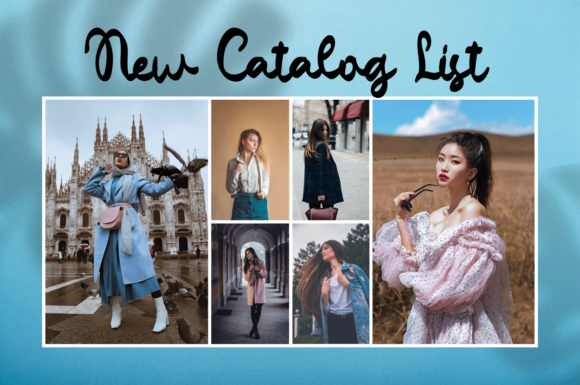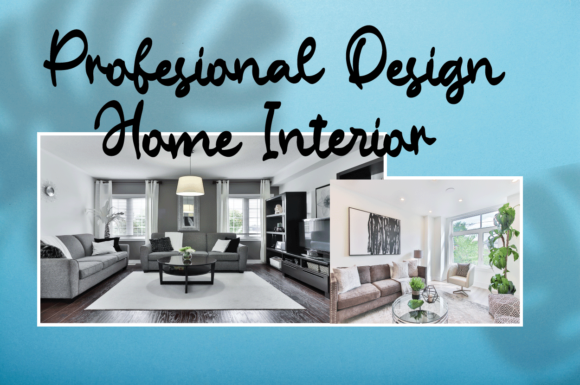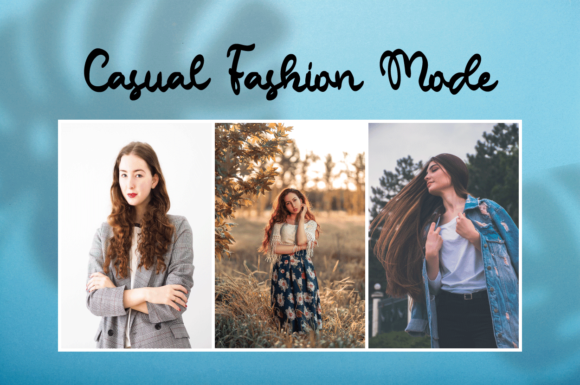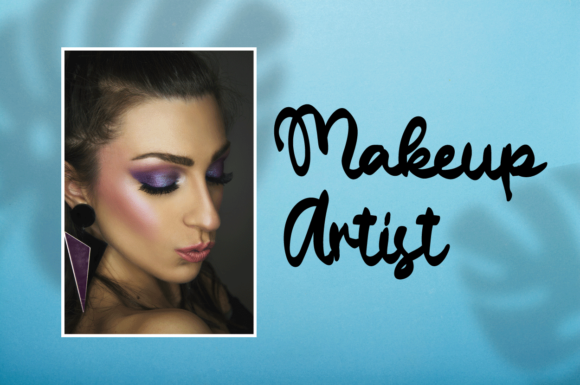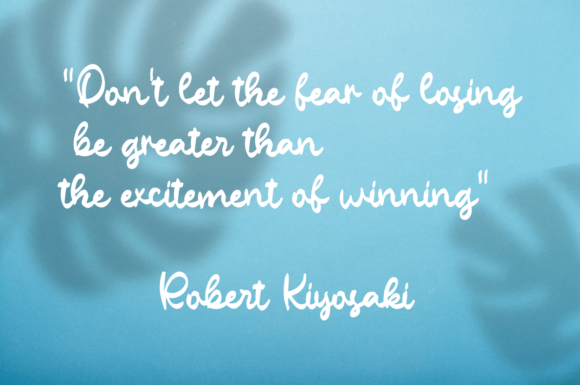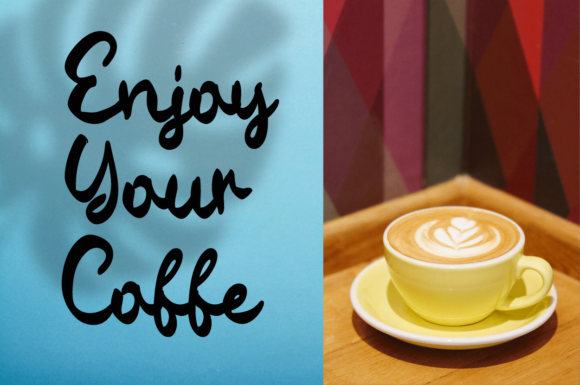
Introducing Angelica Script Font: A Delicate and Sweet Handwritten Font
Are you a designer or crafter looking for a font that can add a touch of elegance and sweetness to your projects? Look no further than Angelica Script Font. This beautiful handwritten font is designed to bring a delicate and charming feel to your creations, making it perfect for a wide range of applications.
What Makes Angelica Script Font Special?
Angelica Script Font is a delicate and sweet handwritten font that features well-balanced and neat characters. Its unique design makes it an excellent choice for projects that require a personal and elegant touch. Whether you’re working on a logo, invitation, or any other creative project, Angelica Script Font is sure to impress.
Key Features of Angelica Script Font
- Delicate and Sweet Design: Angelica Script Font boasts a delicate and sweet design that is sure to capture the hearts of your audience.
- Well-Balanced Characters: The font features well-balanced and neat characters that ensure clarity and readability.
- Versatile: Angelica Script Font can be used in a variety of projects, from logos and invitations to packaging and more.
- Elegant and Charming: The font’s elegant and charming feel makes it perfect for projects that require a personal touch.
Benefits of Using Angelica Script Font
There are many benefits to using Angelica Script Font in your projects. Some of the most significant advantages include:
- Unique and Eye-Catching Design: Angelica Script Font’s unique design is sure to grab the attention of your audience and set your project apart from the competition.
- Emotional Connection: The font’s delicate and sweet design can help create an emotional connection with your audience, making your project more relatable and engaging.
- Time-Saving: With Angelica Script Font, you can create beautiful and professional-looking projects in no time, saving you time and effort.
Examples of Projects That Angelica Script Font is Perfect For
Angelica Script Font is a versatile font that can be used in a wide range of projects. Here are some examples of projects that the font is perfect for:
- Logos and Branding: The font’s elegant and charming feel makes it perfect for logos and branding projects that require a personal touch.
- Invitations and Stationery: Angelica Script Font is ideal for invitations, stationery, and other paper goods that require a delicate and sweet design.
- Packaging: The font’s unique design makes it perfect for packaging projects that require a touch of elegance and sophistication.
- Digital Products: Angelica Script Font can also be used in digital products, such as ebooks, courses, and more.
In conclusion, Angelica Script Font is a beautiful and versatile handwritten font that is perfect for designers and crafters who want to add a touch of elegance and sweetness to their projects. With its delicate and sweet design, well-balanced characters, and versatile nature, this font is sure to become a favorite in your collection. So why wait? Download Angelica Script Font today and start creating stunning projects that will leave a lasting impression on your audience.